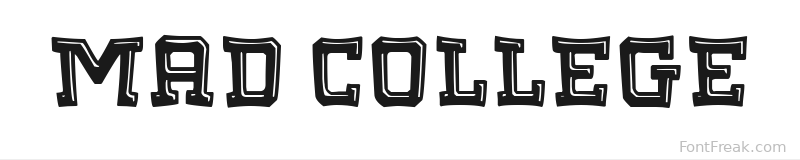
Mad College
About Mad College
The Mad College font, designed by woodcutter Manero, is a striking display typeface that captures attention and embodies a spirited, collegiate aesthetic. This font falls into the decorative category, characterized by its bold, block-style letters that evoke a sense of energy and enthusiasm. The stroke weight varies considerably, with thick outlines that create a strong presence, while the inner details showcase a lighter touch, adding depth and interest. The contrast between these elements gives the font a dynamic feel, making it perfect for a wide range of applications.
Mad College is well-suited for various creative projects, particularly those aimed at younger audiences or infused with a lively vibe. It shines in settings like school event posters, sports team merchandise, and college promotional materials, where it can effectively convey a sense of community and excitement. Additionally, its playful nature makes it an excellent choice for fun restaurant menus, eye-catching flyers, and vibrant social media graphics. Small business owners and graphic designers will find this font particularly useful when aiming to create memorable branding that resonates with a youthful demographic.
The target audience for the Mad College font includes graphic designers seeking to add a unique touch to their projects, small business owners looking to engage their customers, and content creators who want to infuse their work with personality. Its versatility allows it to be adapted for both print and digital formats, ensuring it can meet the needs of various creative endeavors.
What makes the Mad College font stand out is its distinctive character and lively energy, which can transform ordinary designs into extraordinary ones. With its free license, the Mad College font free download offers an accessible option for those looking to elevate their visual communications with a bold and memorable typeface.